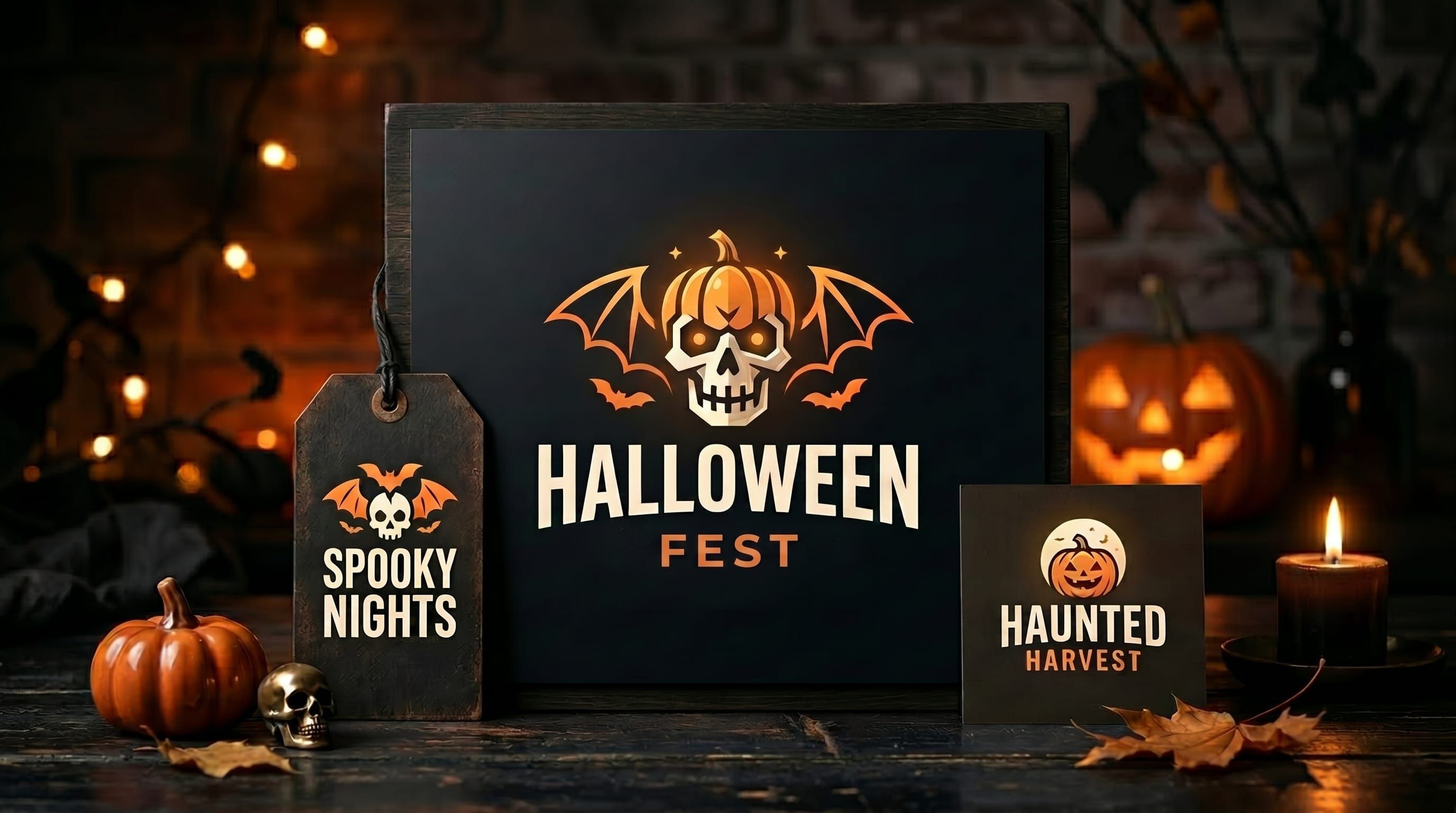
Halloween Logo Design Ideas That Make Your Brand Memorable
If you want your brand to stand out during seasonal campaigns, using the right halloween logo design ideas is essential. Many brands struggle to create visuals that feel both creative and relevant. By applying effective halloween logo design ideas, you can build a memorable identity that captures attention and connects with your audience.
In this guide, you will discover creative halloween logo design ideas, design tips, and branding strategies that help you create unique and engaging logos. Whether you are a designer or a business owner, these halloween logo design ideas will help you achieve better results.
Why Halloween Logo Design Ideas Matter for Branding
Using strong halloween logo design helps your brand stay relevant during seasonal promotions.
• Increased brand visibility
• Strong emotional connection
• Better engagement
When you apply the right halloween logo ideas, your brand becomes more memorable.
Spooky Typography in Halloween Logo Design Ideas
Typography plays a major role in halloween logo design.
1. Use Horror Inspired Fonts
Choose fonts with sharp edges or dripping effects like Melted Monster.
Melted Monster - Halloween Pack Layered Font
2. Experiment with Handwritten Styles
Add a creepy or mysterious feel.
3. Mix Bold and Decorative Fonts
Create strong visual contrast.
Typography-focused halloween logo design help create strong visual identity.
Color Choices in Halloween Logo Design Ideas
Color is one of the most important elements in halloween logo design.
1. Classic Halloween Colors
Use orange, black, and purple.
2. Dark and Moody Tones
Create a mysterious atmosphere.
3. High Contrast Combinations
Improve visibility and readability.
Strong color selection enhances your halloween logo design.
Icon and Symbol Ideas for Halloween Logo Design Ideas
Visual elements make halloween logo design more engaging.
1. Popular Halloween Symbols
• Pumpkins
• Ghosts
• Bats
• Skulls
2. Creative Custom Icons
Design unique elements that match your brand.
These elements strengthen your halloween logo design.
Minimalist Halloween Logo Design Ideas for Modern Brands
Minimalism is becoming popular in halloween logo design.
1. Simple Shapes
Keep the design clean and clear.
2. Limited Color Palette
Focus on 1-2 colors.
3. Subtle Halloween Elements
Use small details for a modern look.
Minimalist halloween logo design work well for professional brands.
Vintage Style Halloween Logo Design Ideas
Retro styles are trending in halloween logo design.
1. Muted Colors
Create a nostalgic feel.
2. Classic Typography
Use serif or retro fonts like Spooky Retro.
Spooky Retro
3. Grain Texture
Add depth and character.
Vintage-inspired halloween logo design create a timeless look.
Playful Halloween Logo Design Ideas for Fun Brands
Not all halloween logo design need to be scary.
1. Cartoon Style Graphics
Make your logo friendly and fun.
2. Rounded Typography
Create a softer visual tone like Bubble Halloween.
Bubble Halloween
3. Bright Colors
Appeal to a wider audience.
These halloween logo design are perfect for family-friendly brands.
Font Pairing Ideas for Halloween Logo Design
Choosing the right fonts improves your halloween logo design.
1. Mysterious and elegant Halloween vibe
Caskford Halloween
Caskford HalloweenView
Scary House - Spooky Font
Scary House - Spooky FontView
2. Playful Halloween energy
Playdough Halloween Font
Playdough Halloween FontView
Night Blood Font
Night Blood FontView
3. Creepy and organic Look
Melted Scholar
Melted ScholarView
Scary Zombie - Spooky Font
Scary Zombie - Spooky FontView
Good font pairing strengthens your halloween logo design.
Common Mistakes in Halloween Logo Design Ideas
Avoid these mistakes:
• Overcomplicating the design
• Using too many colors
• Poor readability
• Ignoring brand identity
Fixing these issues improves your halloween logo design.
How to Apply Halloween Logo Design Ideas Effectively
To get better results with halloween logo design:
1. Keep your design simple
2. Focus on brand consistency
3. Use strong visual elements
4. Test different variations
This approach helps you maximize your halloween logo design.
Tools to Create Halloween Logo Design Ideas
Using the right tools helps you create better halloween logo design.